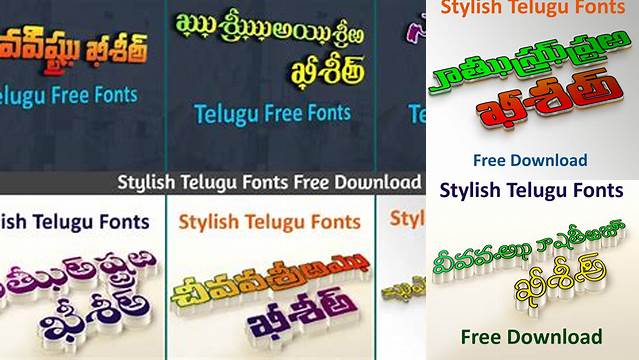
Why Telugu Fonts Matter
First off, let's talk about why Telugu fonts are so important. If you're someone who works with Telugu script, whether it's for personal projects, professional documents, or just browsing the web, having a good collection of fonts is crucial. The right font can make your text not only legible but also visually appealing. Plus, it adds a personal touch to your work, making it stand out. Using a variety of Telugu fonts enhances readability and ensures that your content connects effectively with your audience. The clarity and aesthetic appeal of different fonts can significantly impact how your message is received. A well-chosen font reflects your attention to detail and respect for the Telugu language, which is vital for both personal and professional communications.
Consider the cultural significance as well. Telugu is a vibrant language with a rich history, and the fonts you use can reflect this heritage. Imagine creating a beautiful invitation for a traditional ceremony or designing a website that truly captures the essence of Telugu culture – the right font can make all the difference. Moreover, having diverse fonts allows you to cater to different audiences and contexts, ensuring your message resonates perfectly. So, whether you're crafting digital content or printed materials, a rich collection of Telugu fonts is an invaluable asset.
Moreover, different fonts evoke different emotions and styles. For example, a sleek and modern font might be perfect for a tech blog, while a more traditional, ornate font could be ideal for a wedding invitation. The versatility of Telugu fonts ensures that you can always find the perfect match for your specific needs, allowing you to express yourself fully and authentically. From formal reports to creative designs, the right font bridges the gap between words and visuals, making your work truly impactful and engaging. This adaptability is crucial in today's diverse communicative landscape, where making a lasting impression is key. The subtle nuances of each font play a significant role in shaping perceptions and reinforcing your intended message, which is why font selection should never be an afterthought.
When searching, remember to look for fonts that support the specific characters and ligatures used in Telugu script. Not all fonts offer comprehensive support, so it's essential to verify this before you download and install them. Websites often provide previews and character maps that let you see all the glyphs included in the font, ensuring it meets your requirements. This attention to detail will save you time and frustration in the long run, preventing compatibility issues and ensuring your text displays correctly across different applications and platforms.